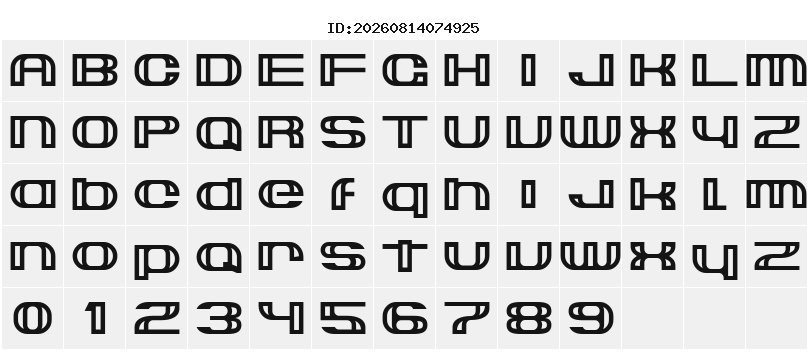
• Font Name: Suncatcher
• Designer: Rich Gast
• Manufacturer: GreyWolf WebWorks
• Description: An outline font designed to be used in conjunction with its companion fill font, Suncatcher Fill, to create colorful words with an appearance similar to their namesake window decorations.
Suncatcher.ttf is a modern, elegant sans-serif font designed for ultimate readability and visual harmony. Perfect for branding, headlines, web design, and print materials.